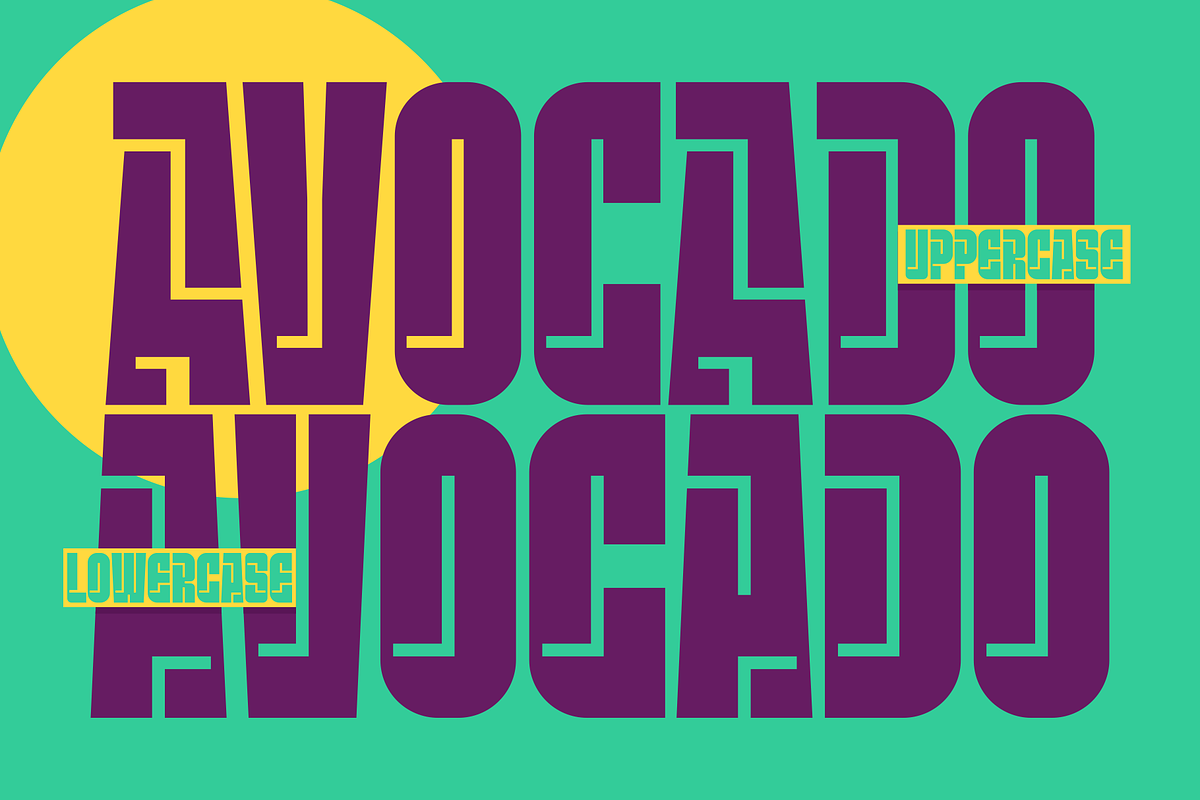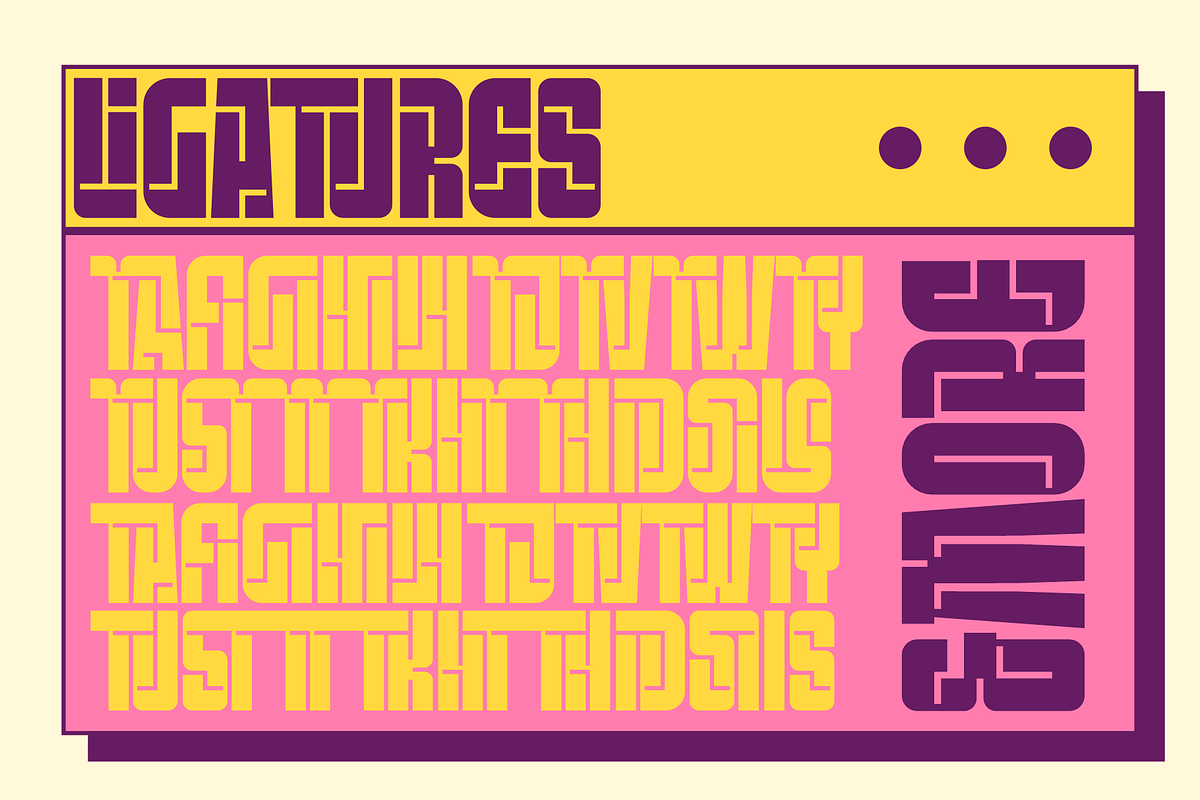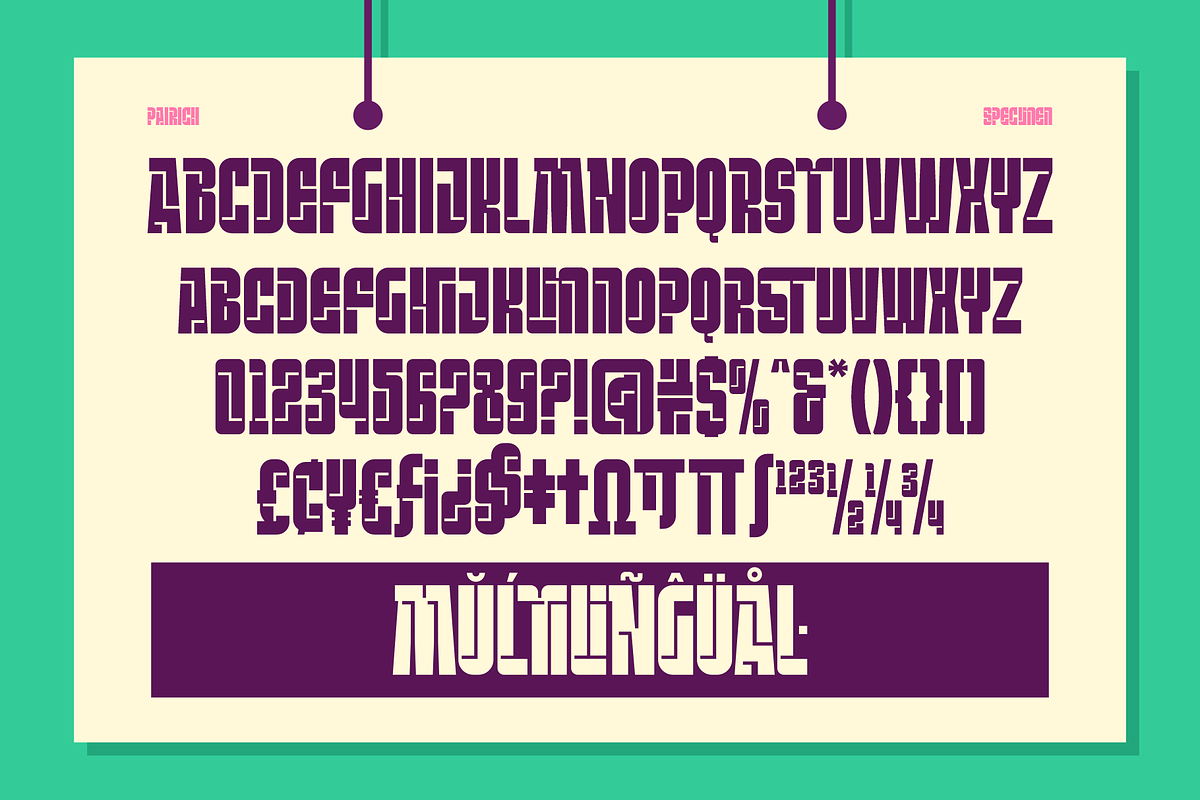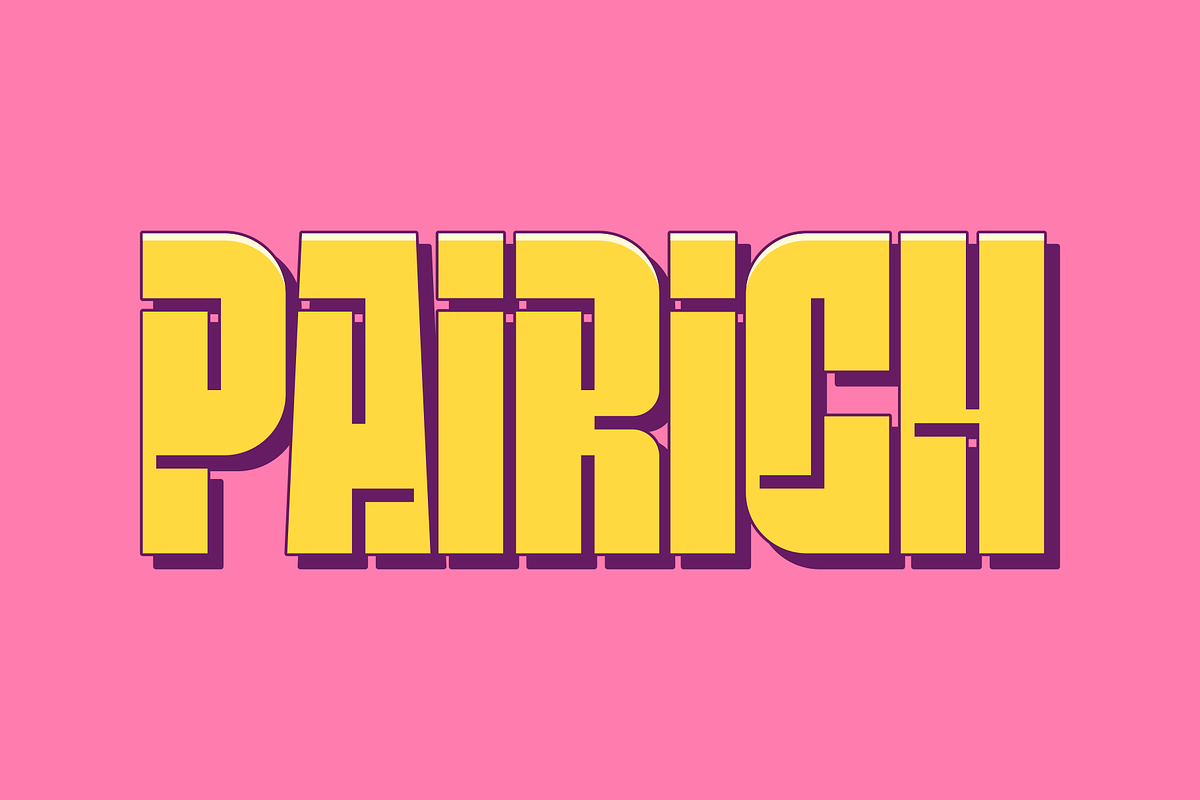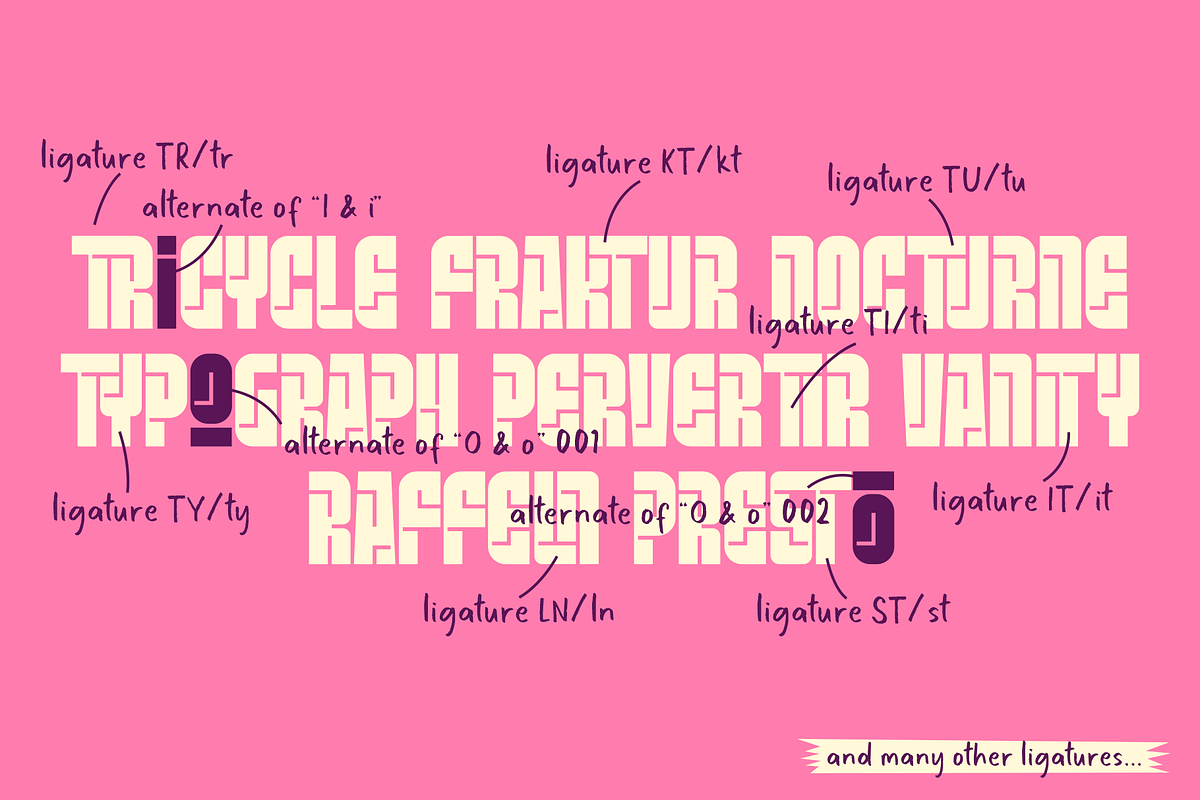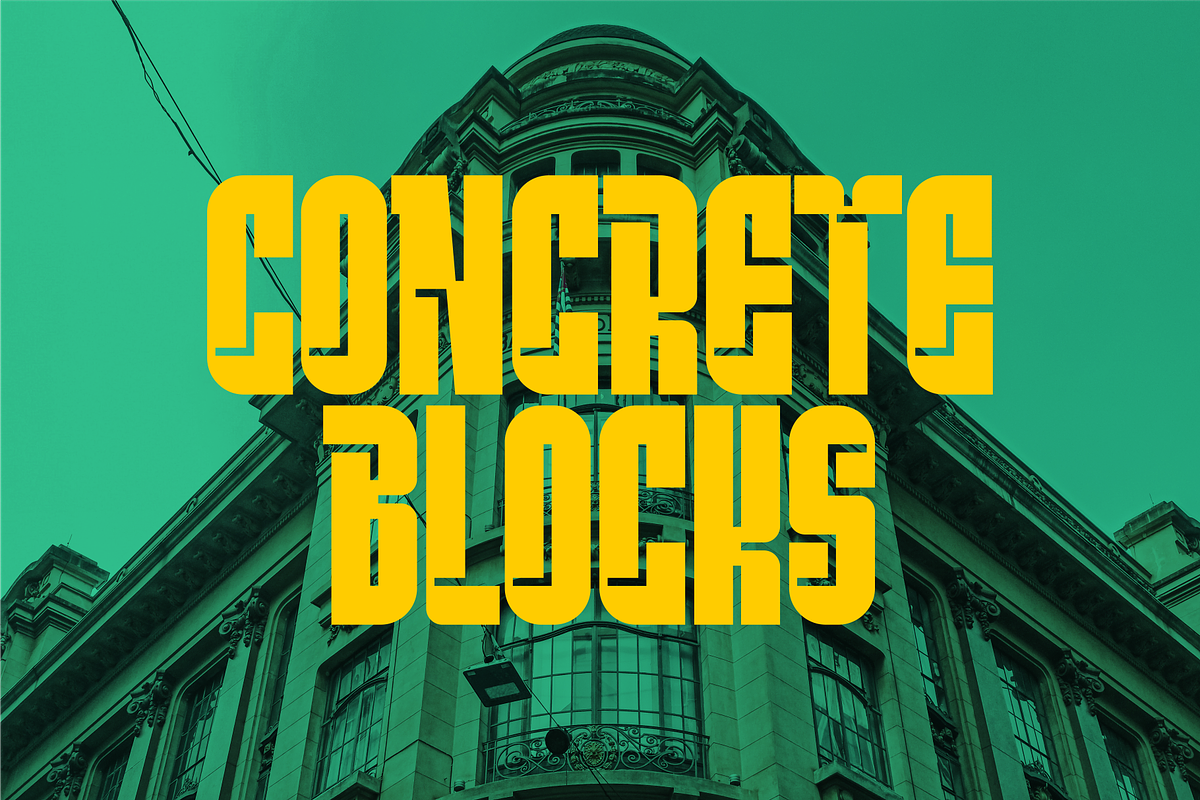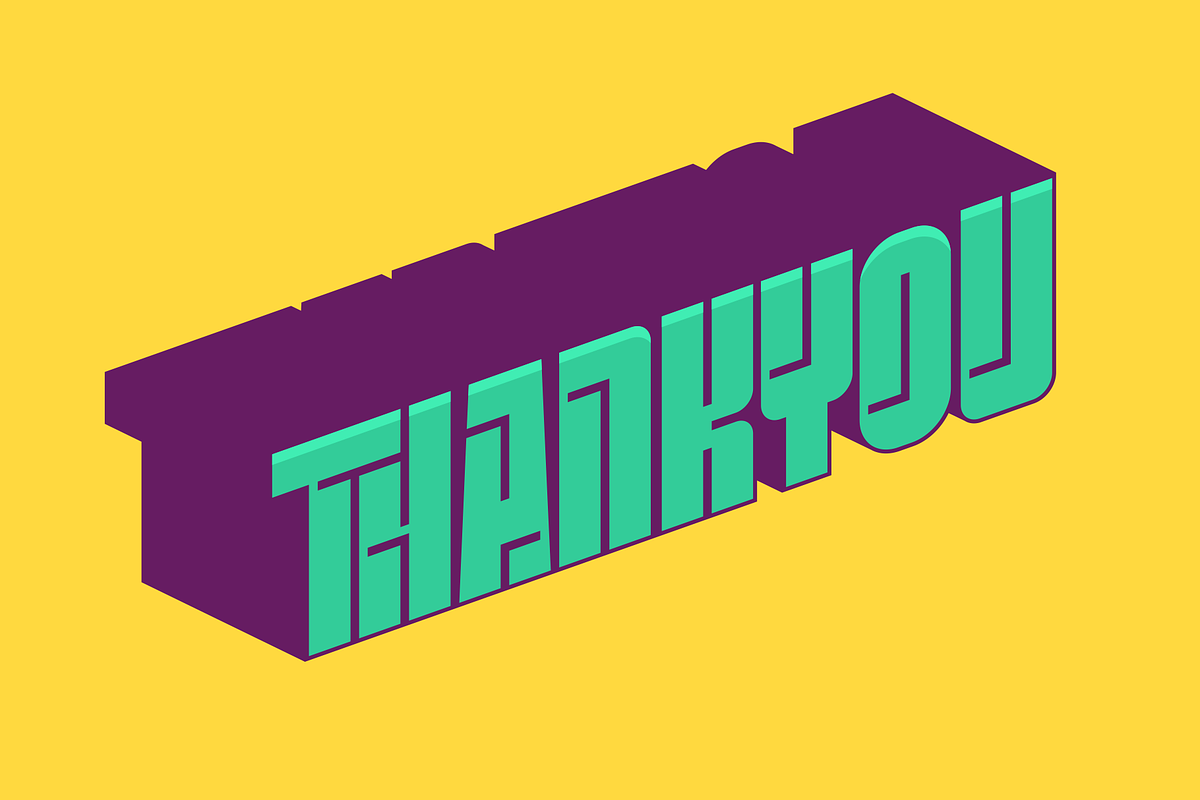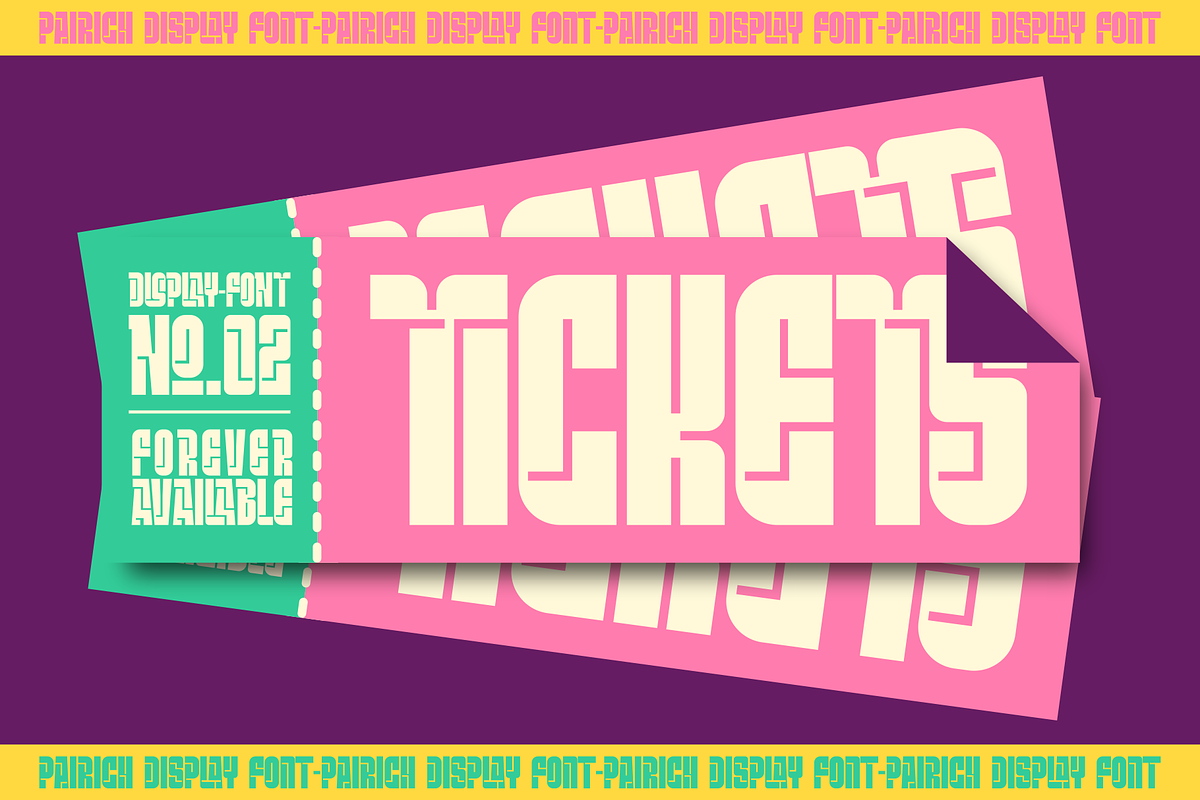
Pairich
Pairich is a font derived from exploration inspired by various product labels around and on social media, designed as unique as possible to get the right proportions as a font.